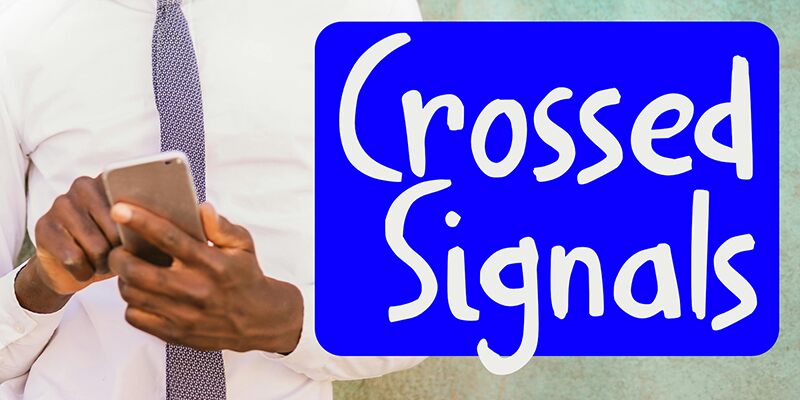
Crossed Signals DEMO Regular
Crossed Signals font is a sleek, casual handwritten font by David Kerkhoff. Its character is neat and easy on the eye at first read but gradually grows on you with its natural beauty and friendly vibe. The artistic flair of the letters in this free font makes every word exhibit a relaxed modern mood.
Possible use cases for Crossed Signals include personal diaries, lifestyle blogs, fashion websites, book covers, food packaging, clothing product labels, website headers, about sections, photo captions, social media posts and videos.